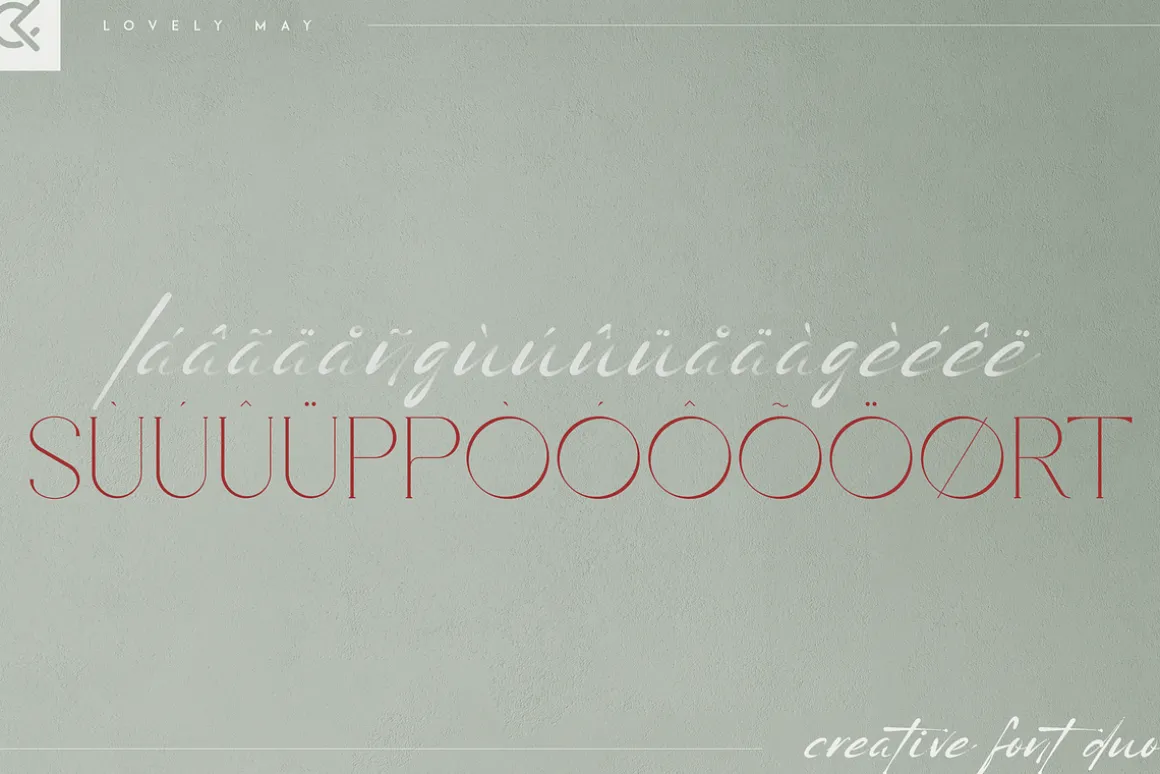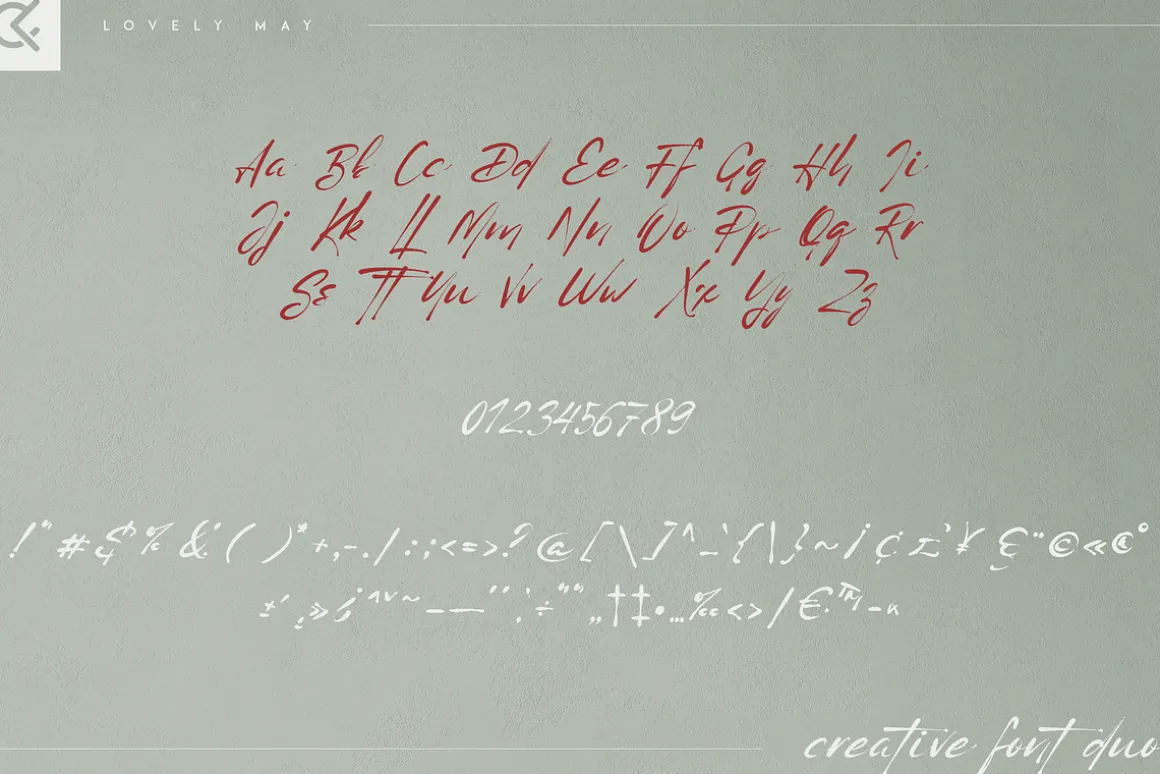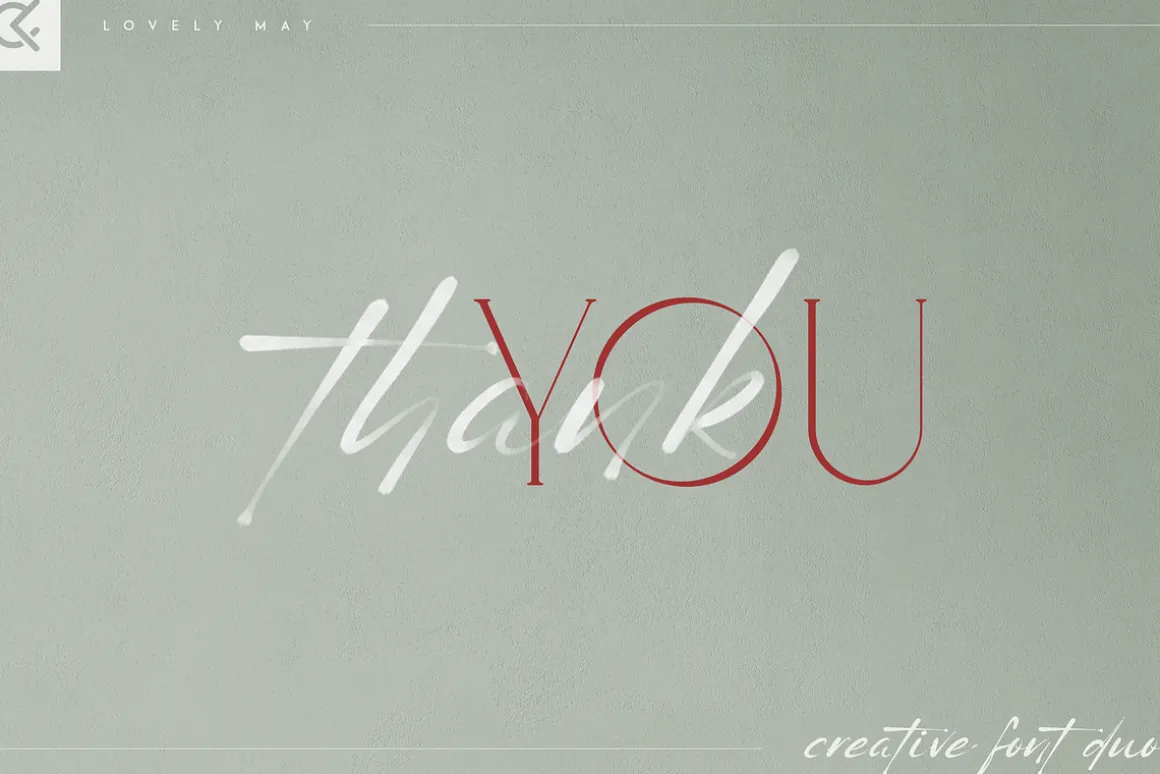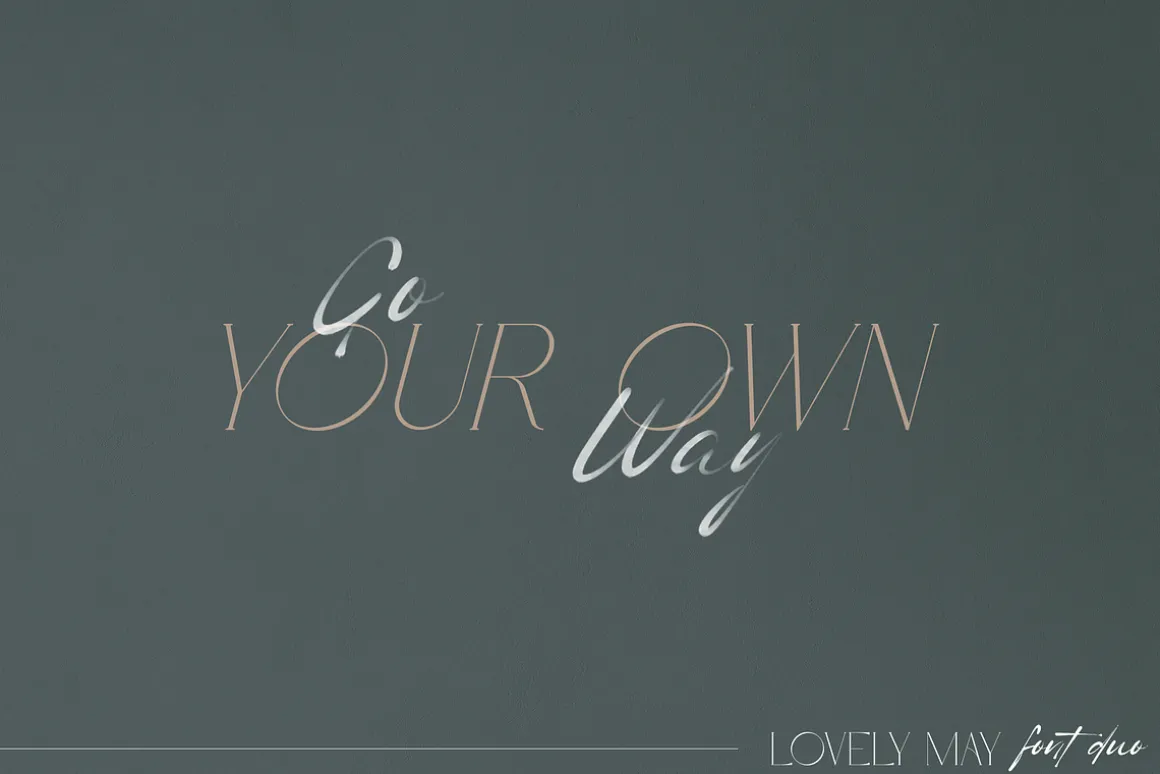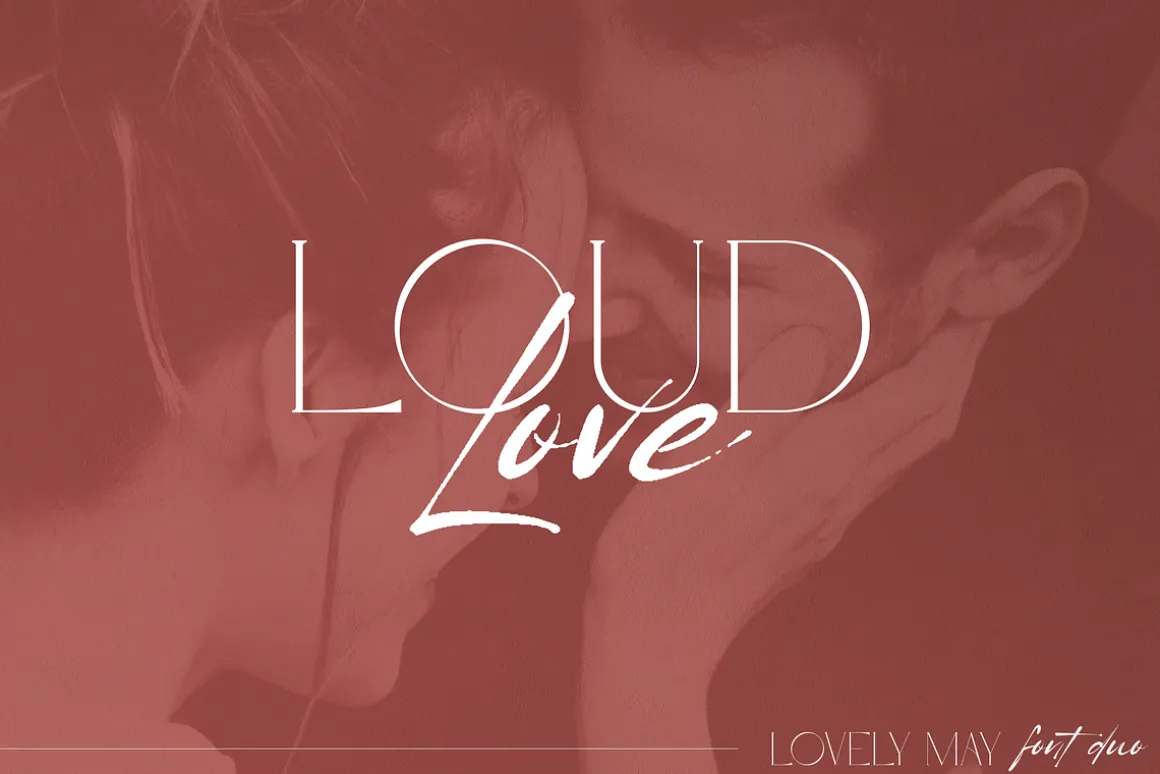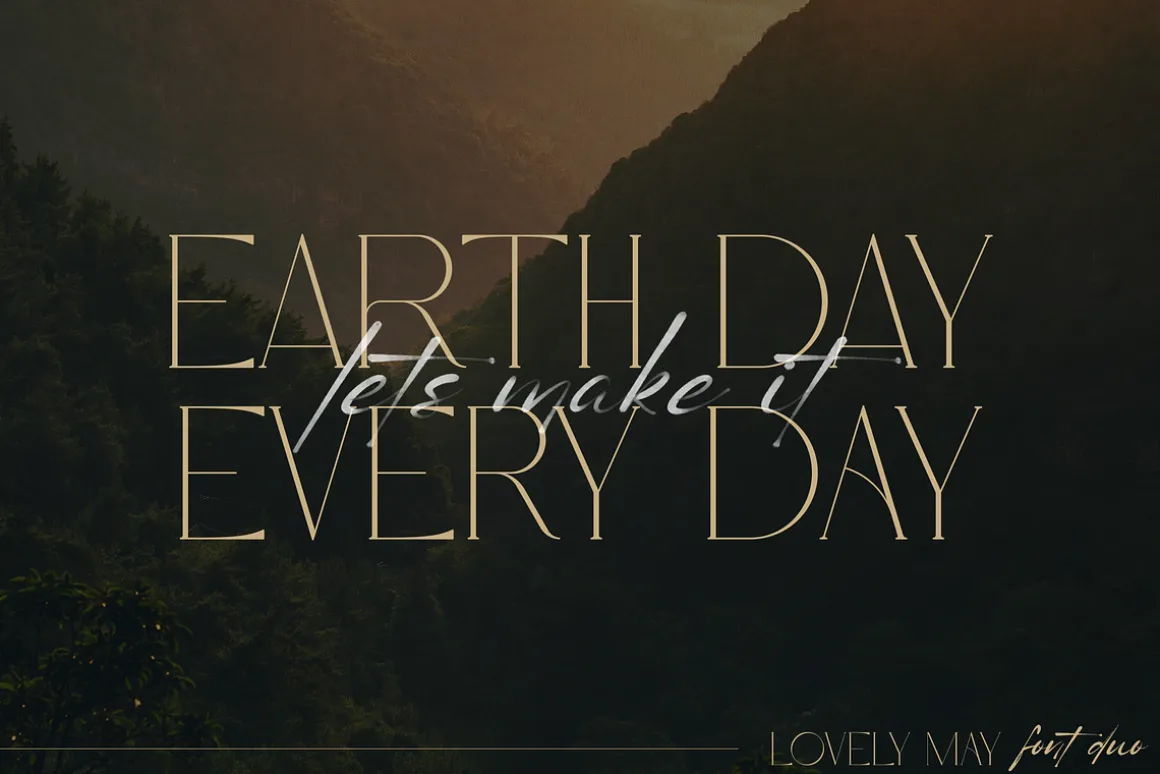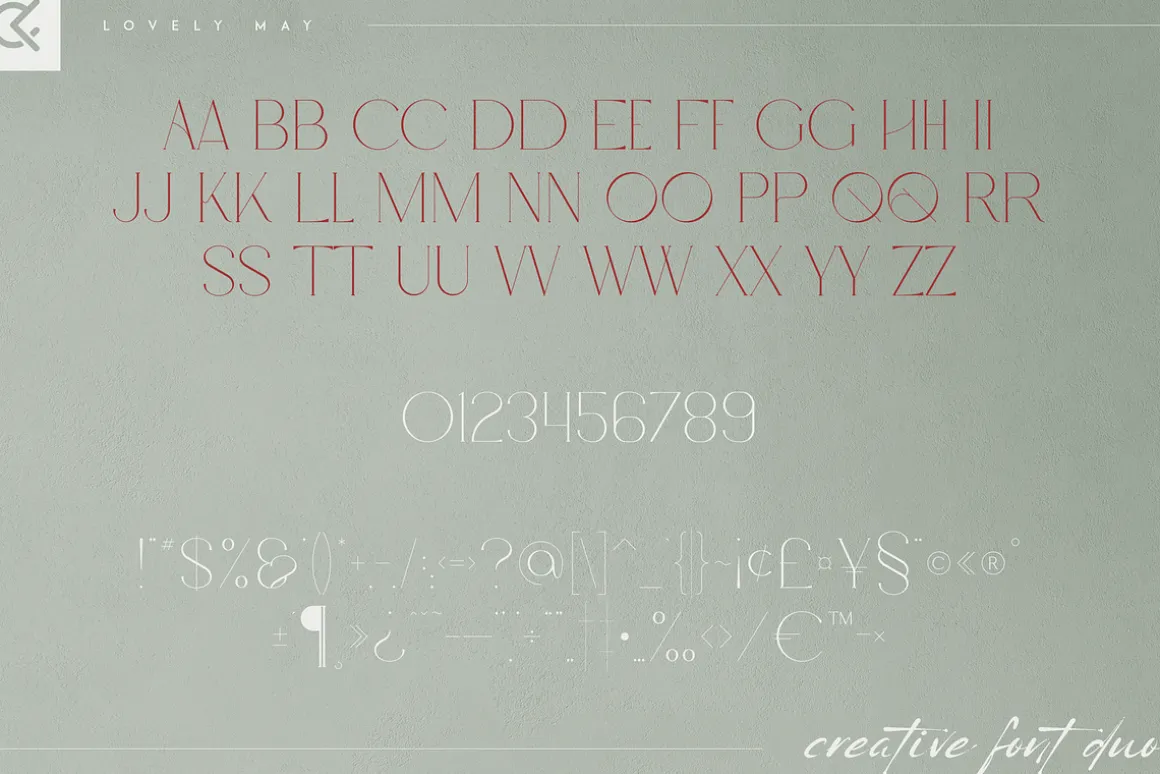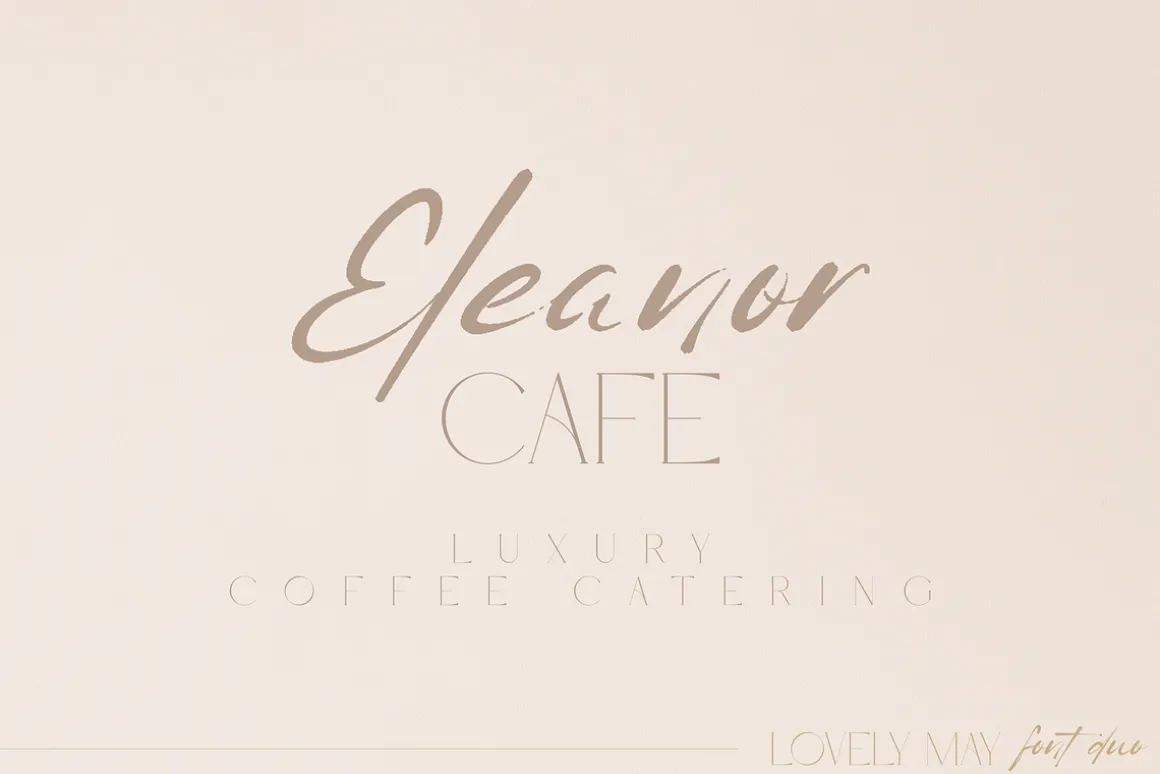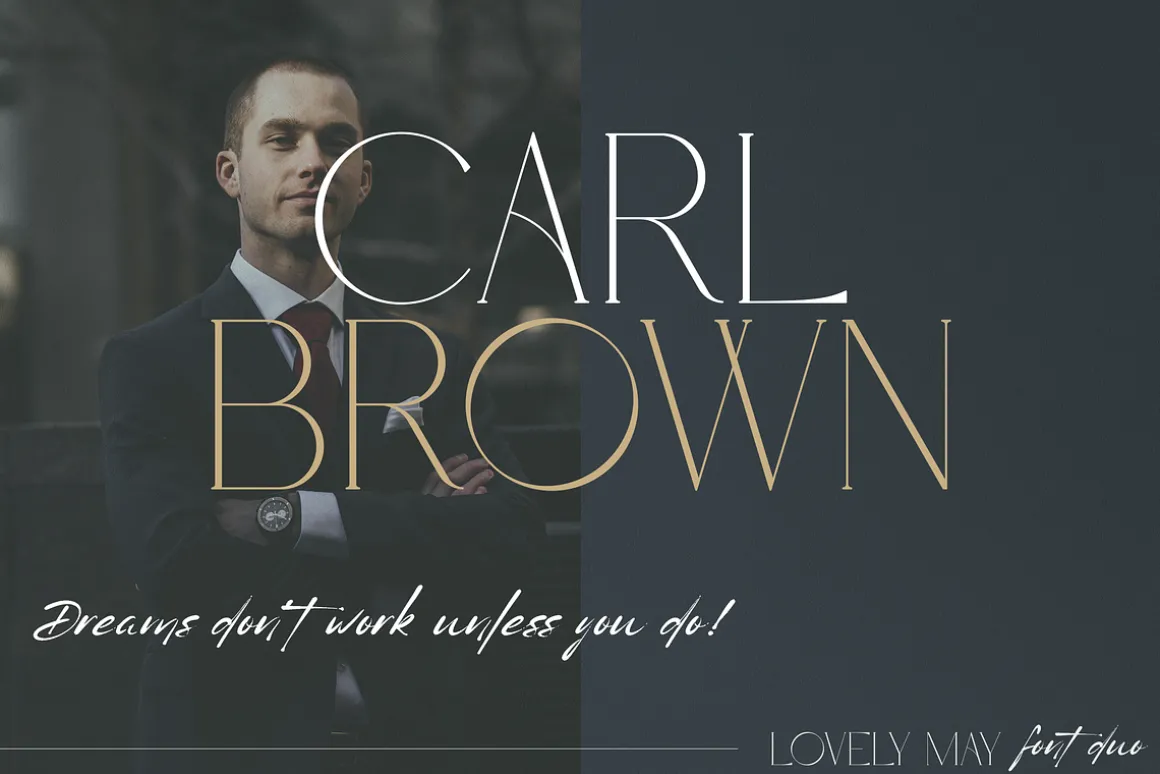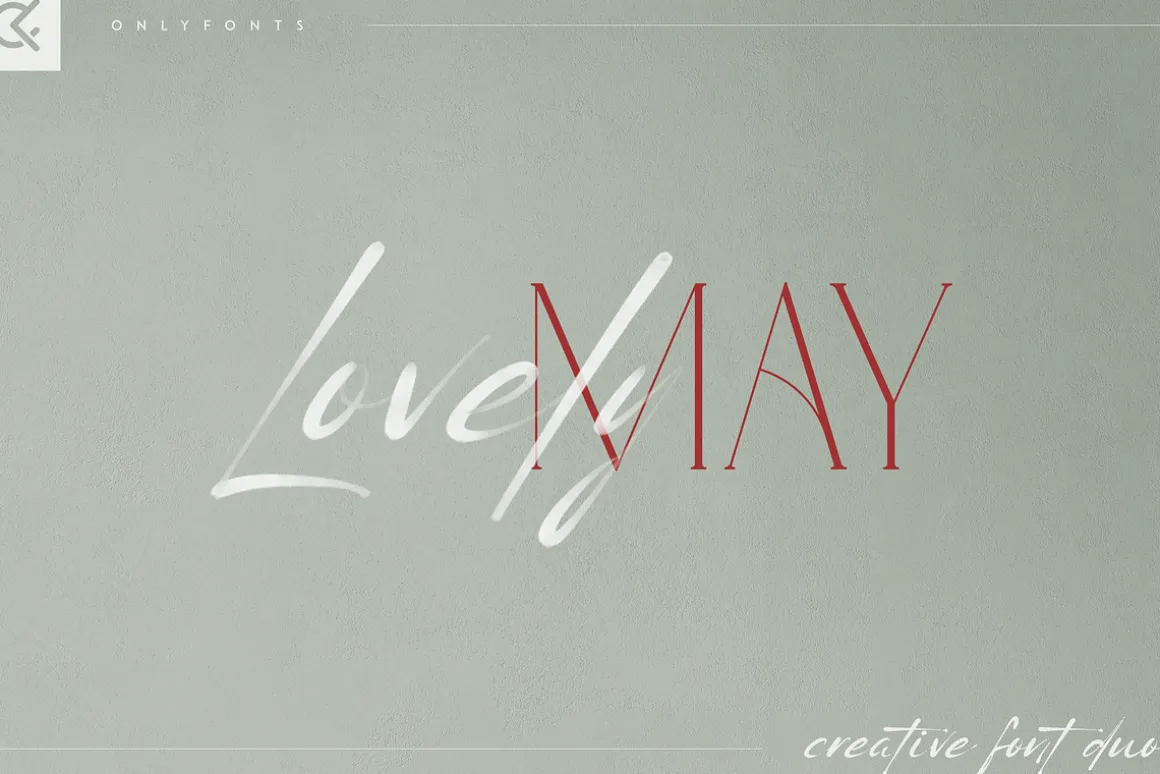
Introducing Lovely May – Creative Font duo
Lovely May is elegant and organic font duo with multilingual support.It’s a very versatile font that works great in large and small sizes.
This typeface is perfect for branding projects, home-ware designs, product packaging, magazine headers – or simply as a stylish text overlay to any background image.
FEATURES
- Uppercase, lowercase, numeral, punctuation & Symbol
- Regular
- Italic
- Script
- Multilingual support